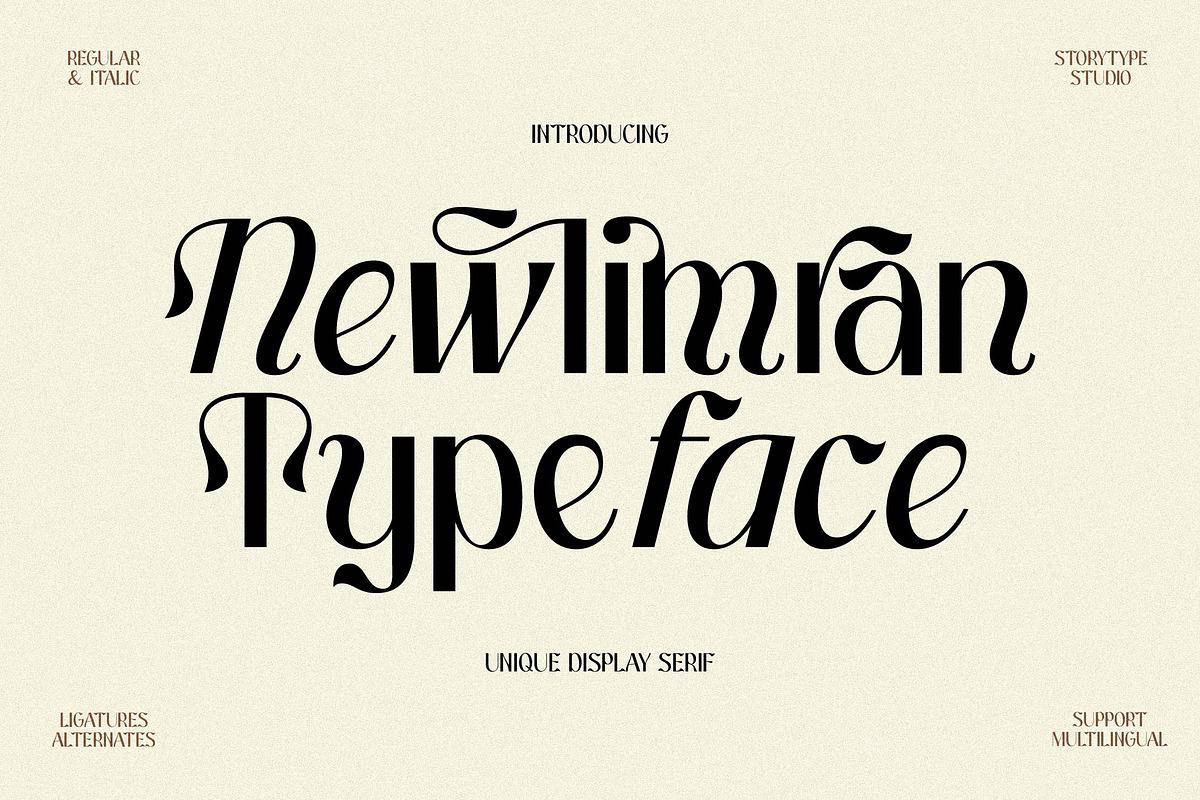
Newlimran Unique Display Font Free Download is a distinctive and eye-catching typeface that combines bold, geometric forms with unique design elements. Perfect for creative projects, branding, modern posters, fashion designs, and headlines, Newlimran stands out with its one-of-a-kind look and stylish character.
Newlimran Unique Display Font Free Download brings a fresh, artistic approach to typography, making it ideal for designs that need to capture attention with style and originality. Whether you're creating a striking logo or crafting standout promotional materials, this font adds a modern, creative touch to your project. Download it today and let Newlimran give your design the unique, bold flair it deserves!